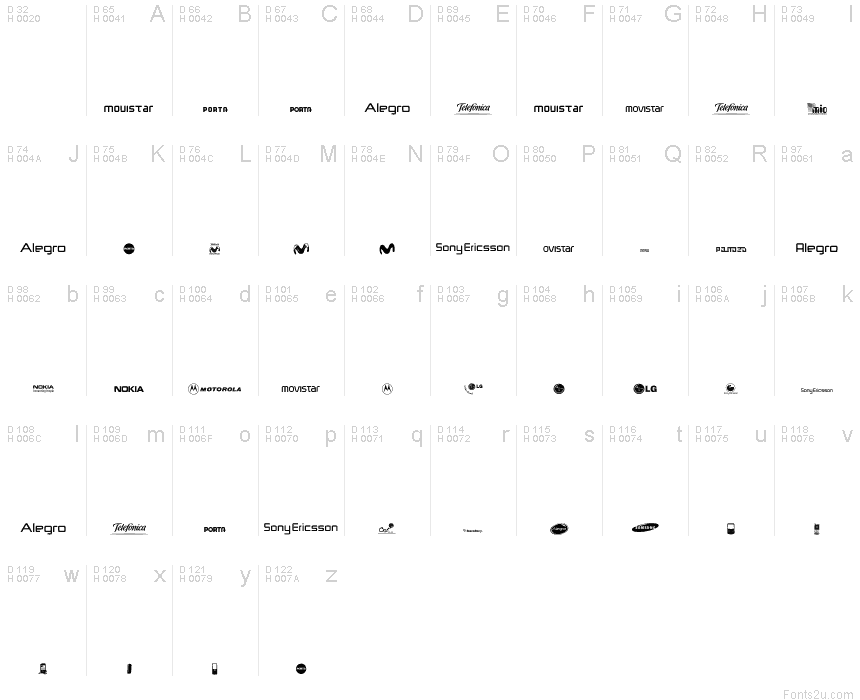
Telefonica from Pastaza Type is a free logo sign font collecting recognizable corporate marks from telecommunications and consumer electronics. The set mixes sweeping signature-style wordmarks with rounded monograms, tightly spaced geometric lettering, and broad, solid oval badges. Each symbol retains the distinctive proportions, spacing, and stroke treatment of its original source.
Designers handling retro technology themes or archival corporate graphics will find it useful for posters and editorial timelines. The ready-made marks provide an immediate period reference. They can also supply recognizable details for technology-themed merchandise, exhibition displays, and media-history collages.
Telefonica